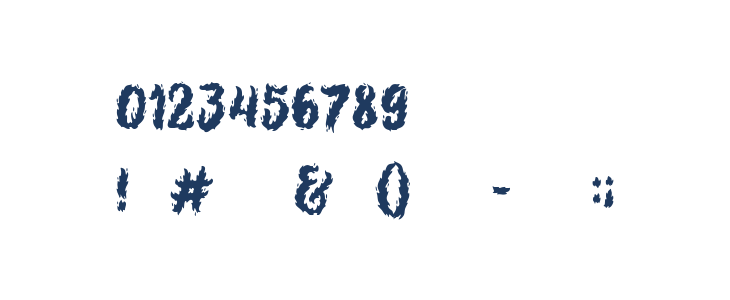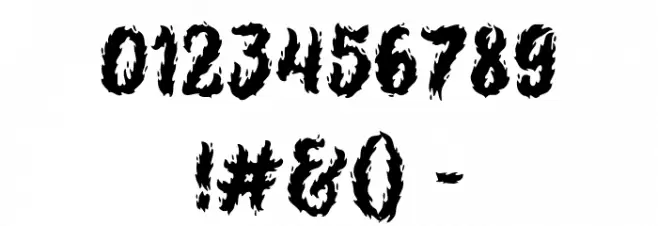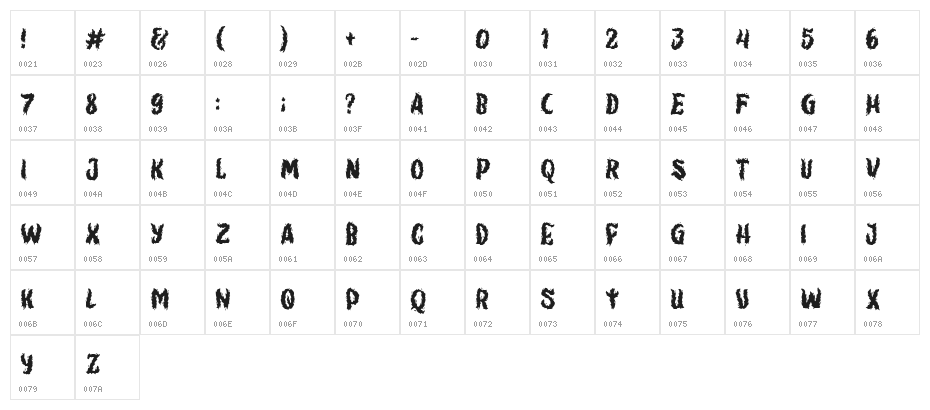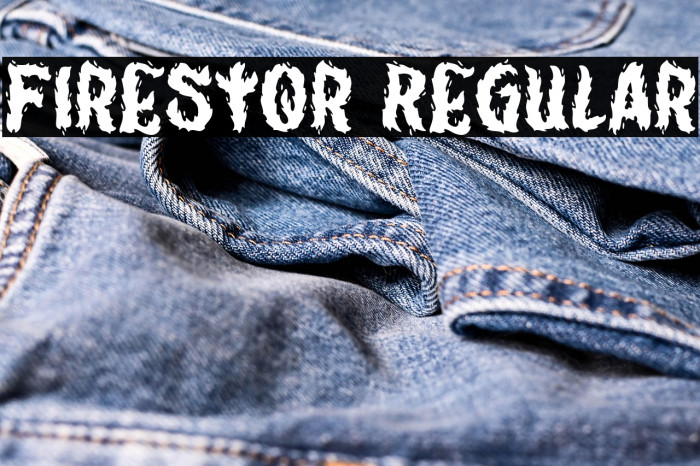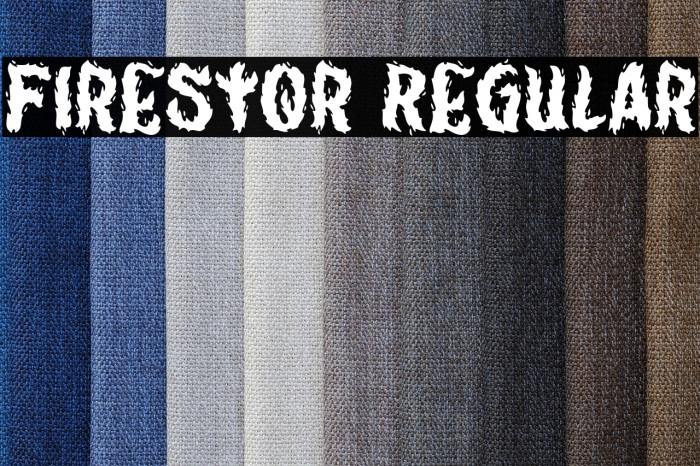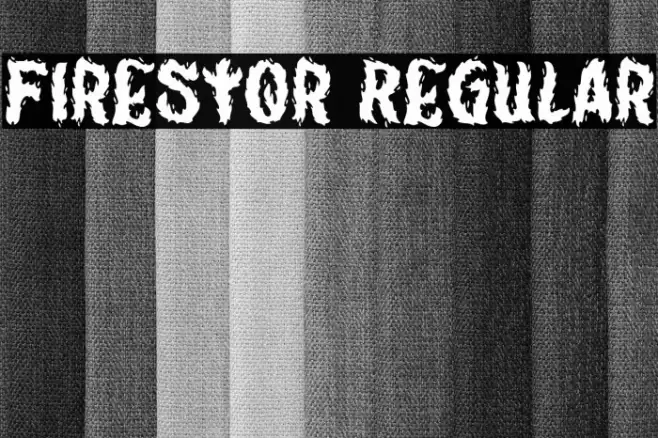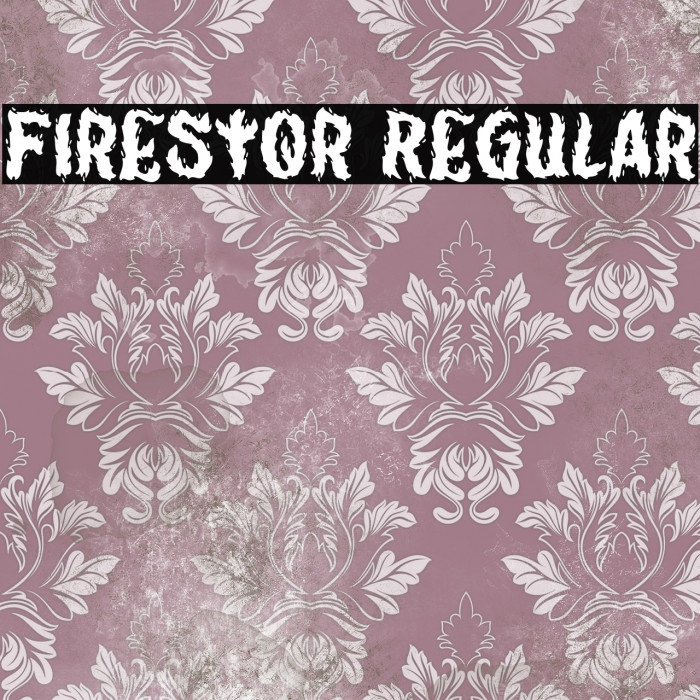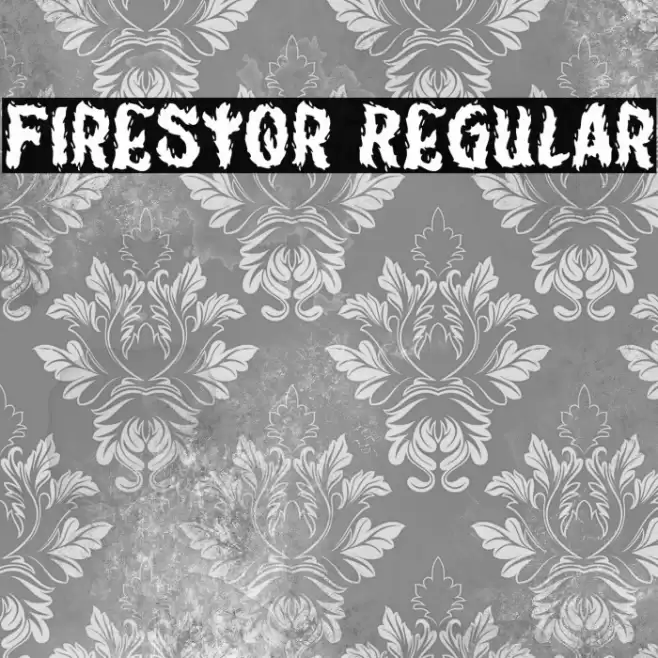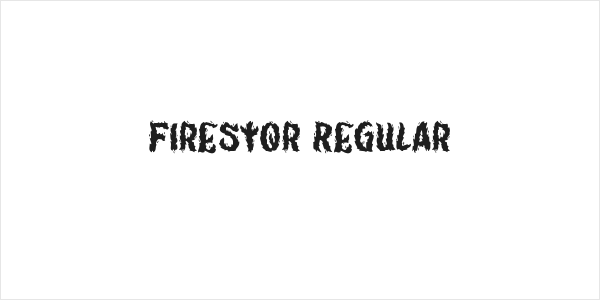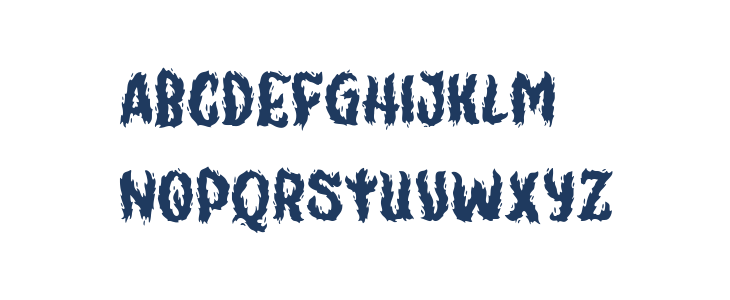
Firestor Regular Font
Firestor Regular Description
This font features a bold and dynamic design, with each character appearing as if it is engulfed in flames. The jagged edges and irregular shapes give it a fiery and energetic appearance, making it stand out with a sense of movement and intensity. The uppercase and lowercase letters maintain this theme consistently, while the numbers and special characters also follow the same fiery motif. This font is perfect for projects that require a dramatic and eye-catching style, such as Halloween-themed designs, action movie posters, or any creative work that needs a touch of excitement and flair.
| Proposed Projects | Ideal for Halloween designs, action movie posters, and dynamic event flyers. |